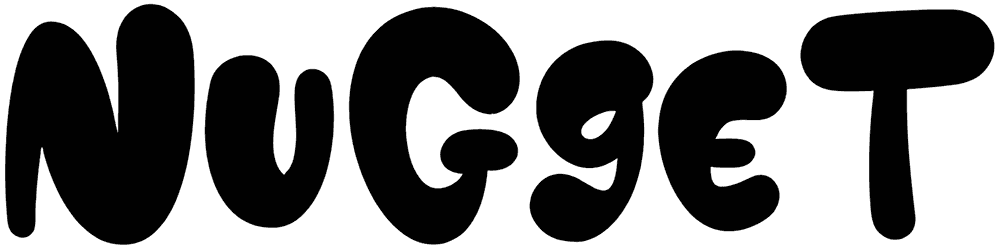
Nugget Font
Deformed and bold, Nugget is a fancy cartoon font without lowercase letters. It is a great option for evoking a humorous mood among your audience.